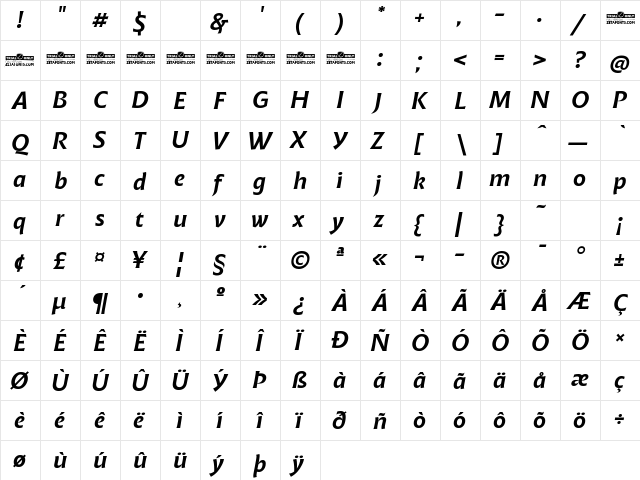
Malik Trial Medium Italic Font Preview
Malik Trial Medium Italic
Design Context for Malik Trial Typeface
Malik Trial takes a measured approach to typography — its balanced proportions and neutral character make it a reliable workhorse for both digital and print work. The dynamic lean of this cut emphasises speed and emphasis in any layout.